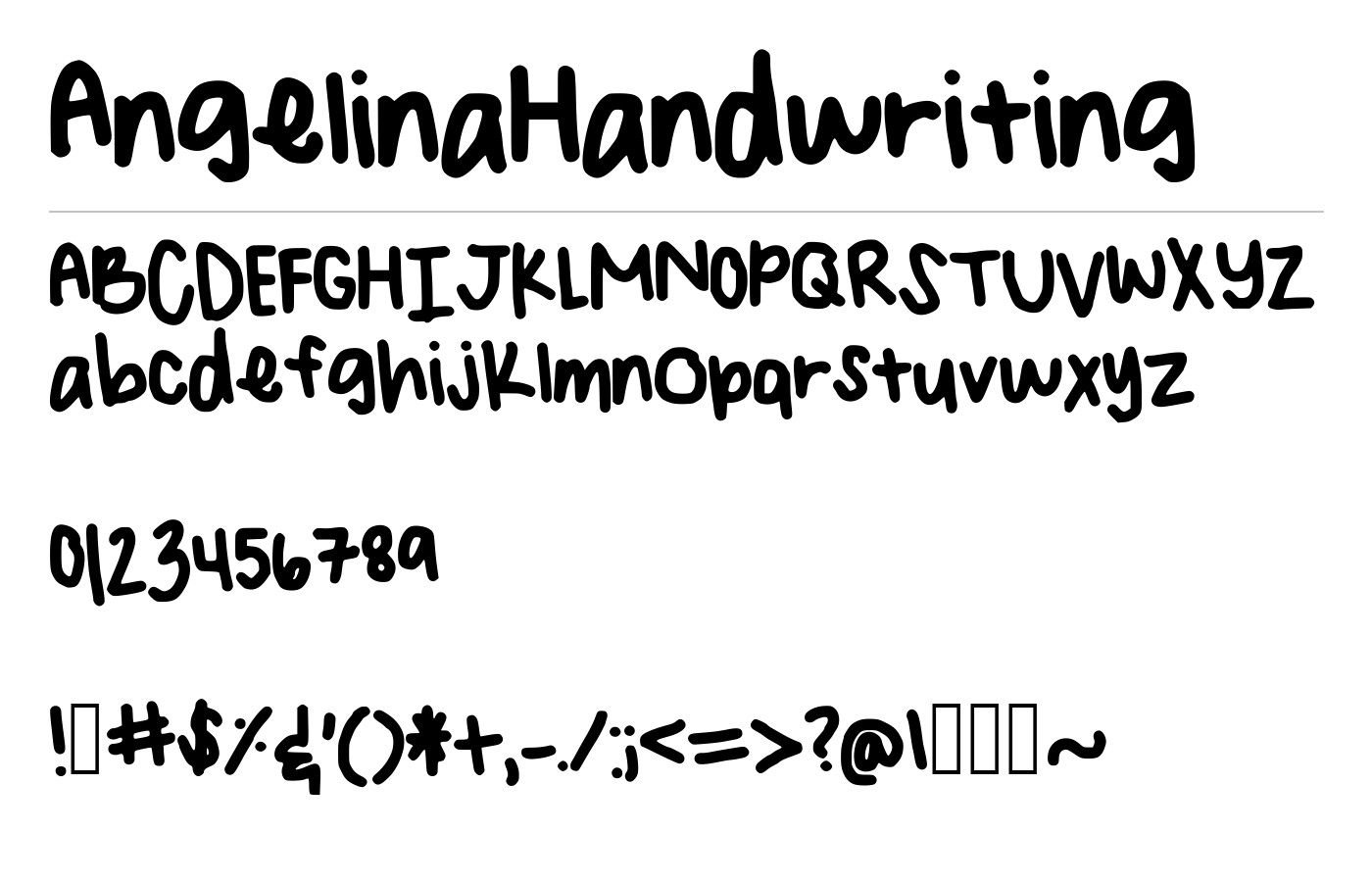
AngelinaHandwriting is a playful and informal sans-serif font that mimics natural handwriting with rounded, friendly letterforms. Its consistent medium weight and upright style create an approachable and casual feel, making it ideal for children’s materials, personal projects, and creative branding. This font works best in headlines and short texts where a warm, human touch is desired.
AngelinaHandwriting Font